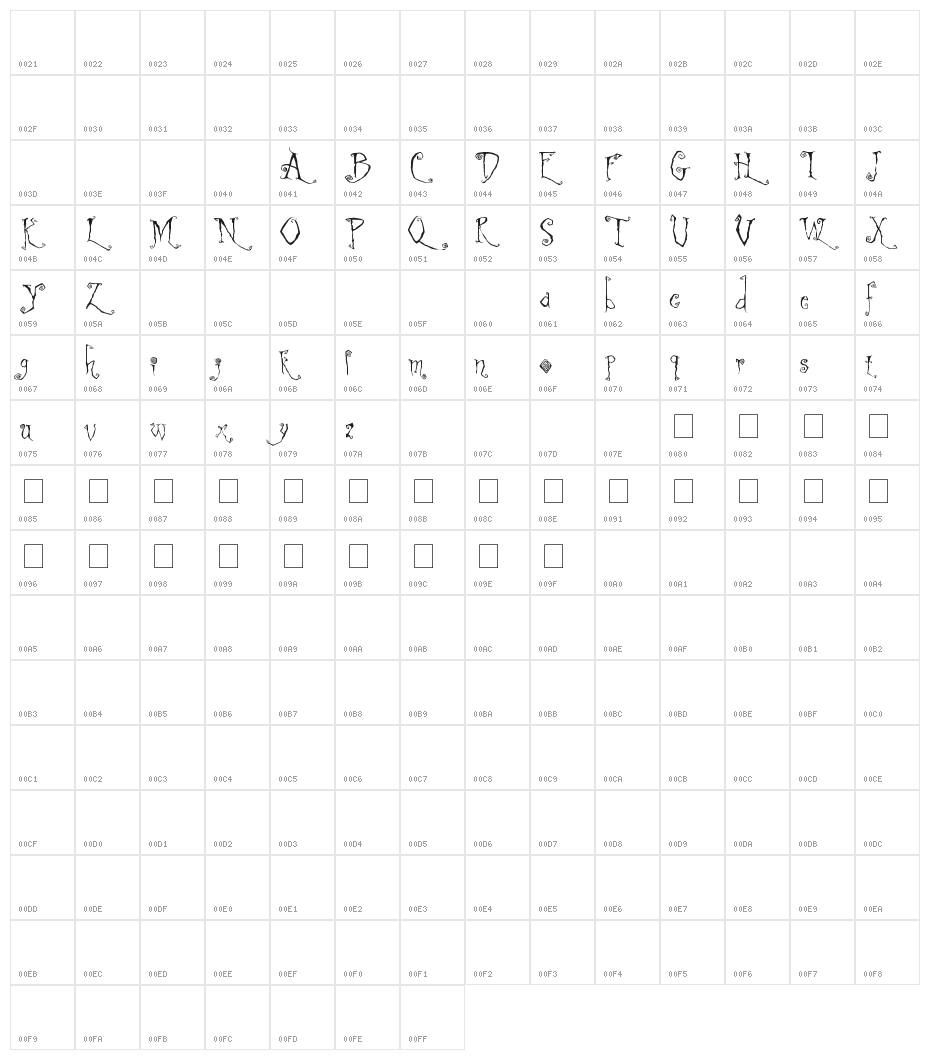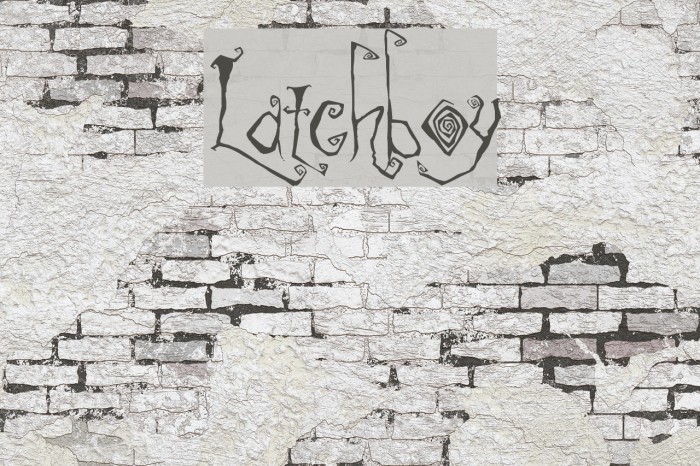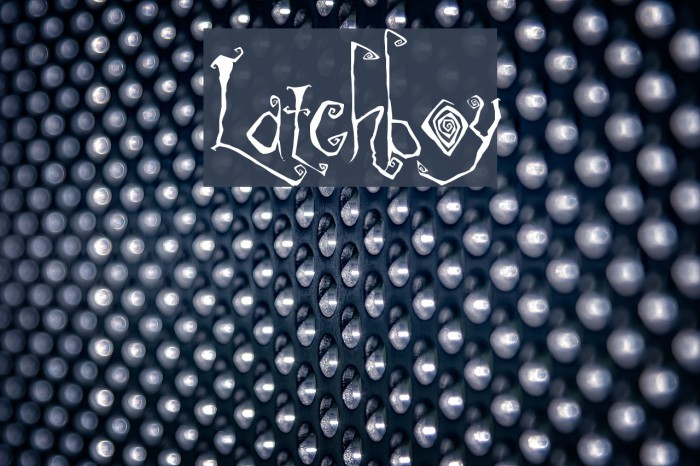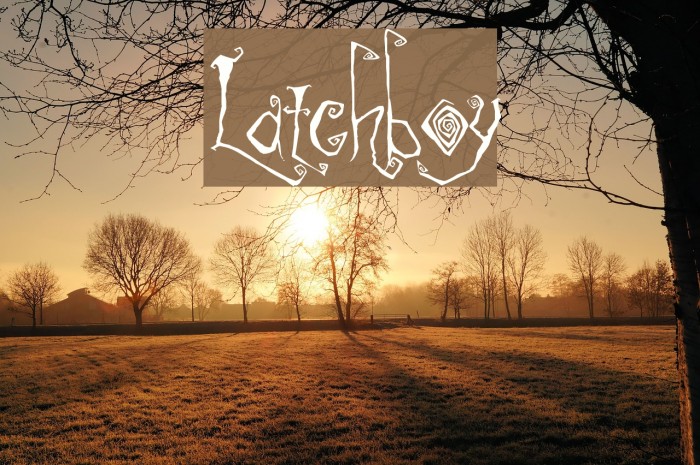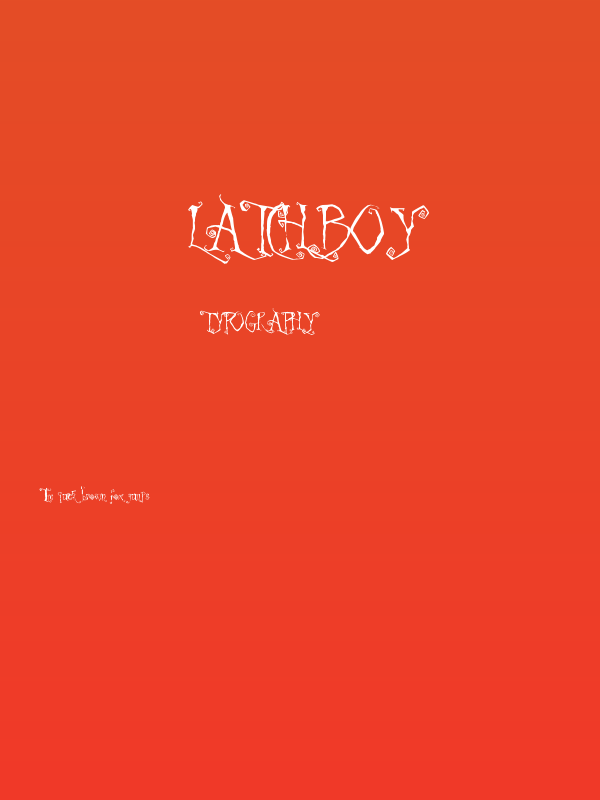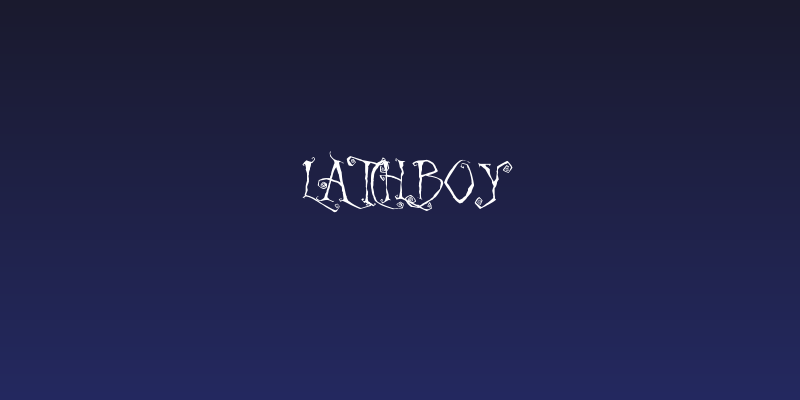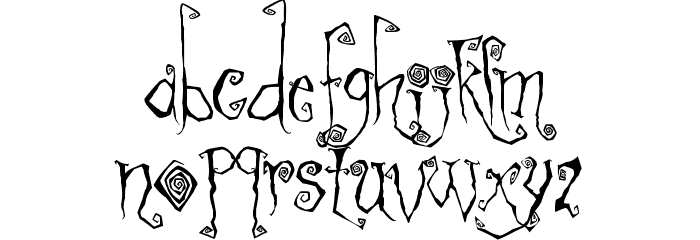
Latchboy Font
Latchboy Description
This font features a whimsical and decorative style with a hand-drawn appearance. Each character is adorned with spiral and swirl embellishments, giving it a playful and artistic feel. The letters are irregular in shape, with varying stroke thicknesses that add to its quirky charm. The uppercase and lowercase letters maintain a consistent theme, with unique flourishes that make each character stand out. The numbers and special characters follow the same decorative pattern, ensuring a cohesive look across all glyphs. This font is ideal for projects that require a touch of creativity and individuality.
Use CaseHeadlines, Logos, Artistic projects
Proposed ProjectsIdeal for creative projects such as children's book covers, fantasy-themed posters, and artistic invitations.